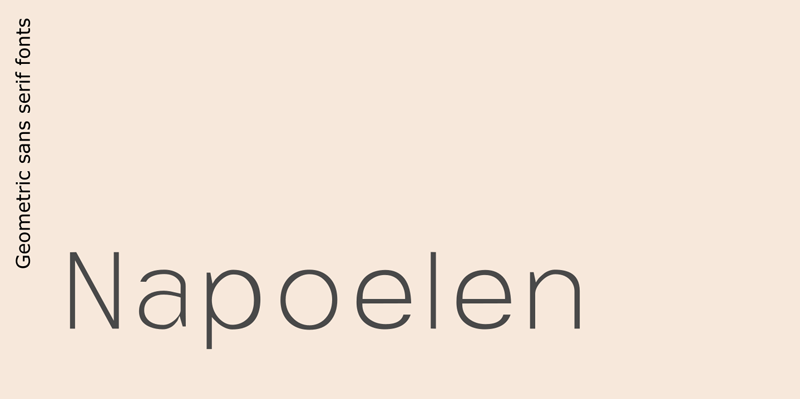
Font name: | Napoelen |
Author: | 4RM Font |
Napoelen is a font that resembles the shape of a simple and elegant geometry, this font is suitable for use in simple design themes. Napoelen font consicst of 10 styles, namely: - Thin - Thin italic - Light - Light italic - Regular - Italic - Bold - Bold italic - Black - Black italic This font available demo version with license FREE PERSONAL & COMMERCIAL USE LICENSE Contact me for download full version napoelen font |